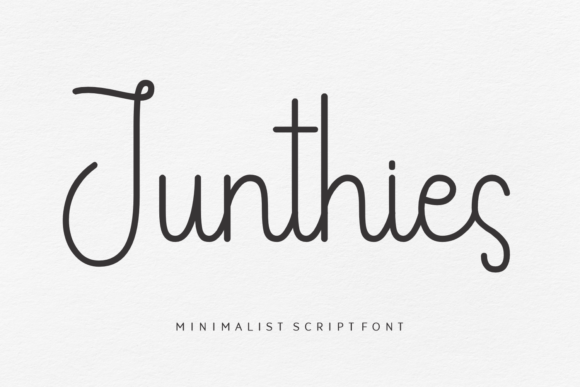
Behold Junthies Font, a captivating minimalist script font that breathes life into your creative endeavors. Its clean and simple design exudes elegance and authenticity, enchanting the hearts of those who seek a delicate and genuine touch in their typography.
With its graceful curves and sweeping strokes, Junthies Font is the perfect companion for crafting logos that exude timeless charm. Create watermarks that leave a lasting impression on your designs, or elevate your business cards with a touch of sophistication. Unleash your creativity with invitations and gift tags that ooze warmth and charm, making every occasion a memorable one.
But Junthies Font's allure extends far beyond its practicality. It is a font that speaks to the soul, evoking emotions and creating a sense of connection. Whether you're expressing heartfelt sentiments in quotes or capturing fleeting moments in prose, Junthies Font imbues your words with an ethereal beauty that transcends the ordinary.
Step into a world of whimsical calligraphy with Junthies Font. Let your imagination run wild as you adorn your designs with intricate flourishes and delicate swashes. With this PUA-encoded font, accessing the full range of glyphs and swashes is a breeze, ensuring that your creative vision knows no bounds.
Junthies Font is not just a font; it's an artistic expression, a window into a world of boundless creativity. It transforms ordinary words into works of art, captivating audiences with its understated grace. Join the creative revolution and elevate your designs with Junthies Font, the ultimate font for those who seek beauty, elegance, and authenticity in their typography.